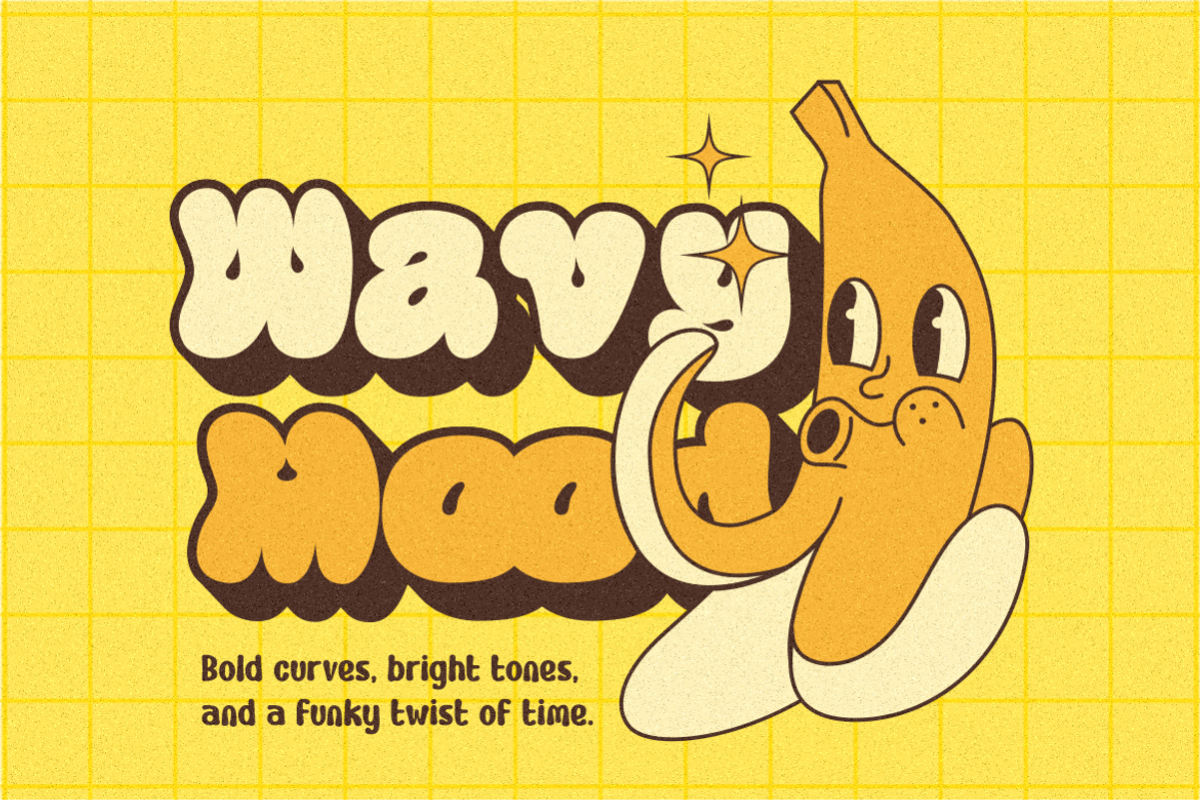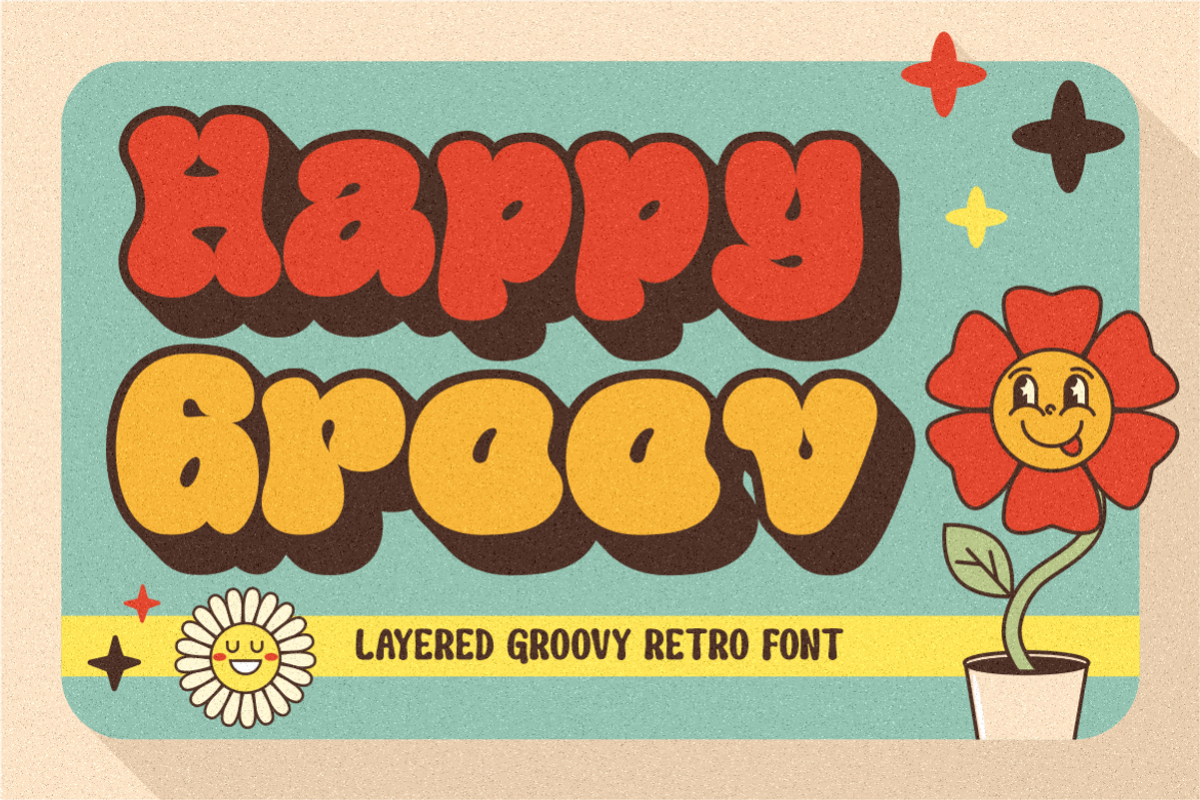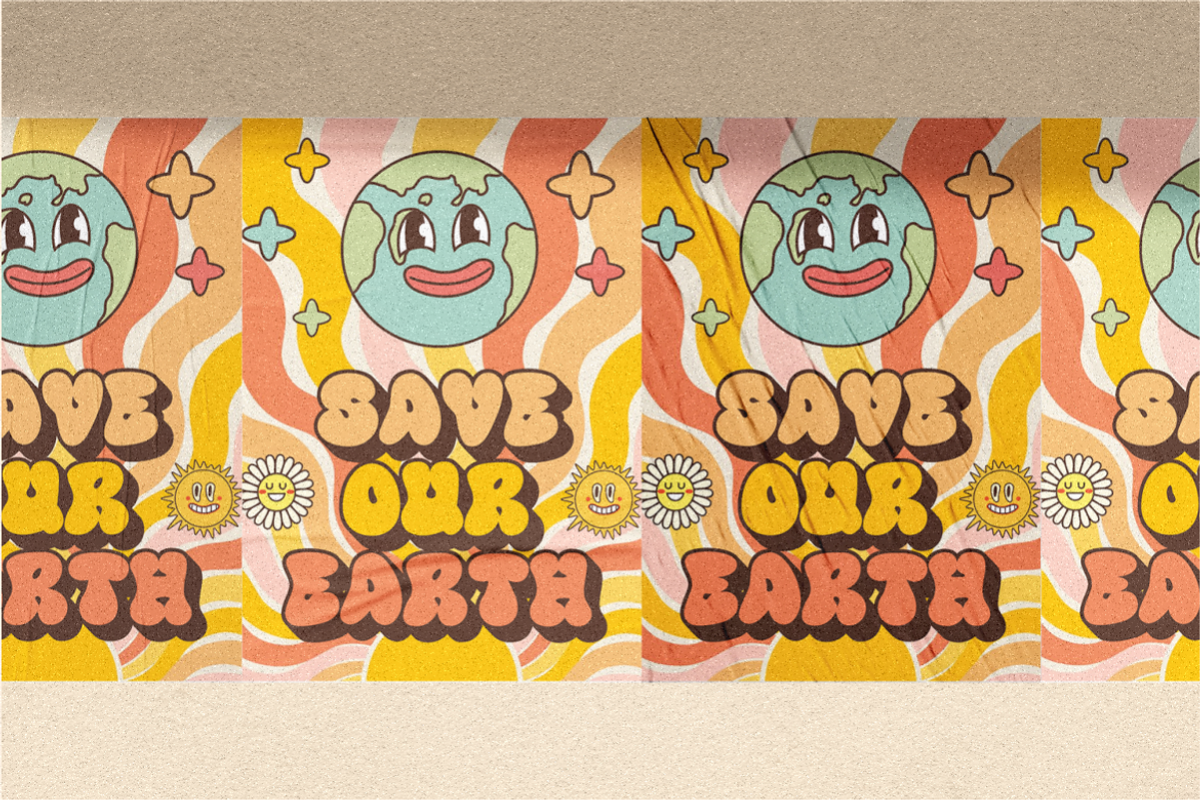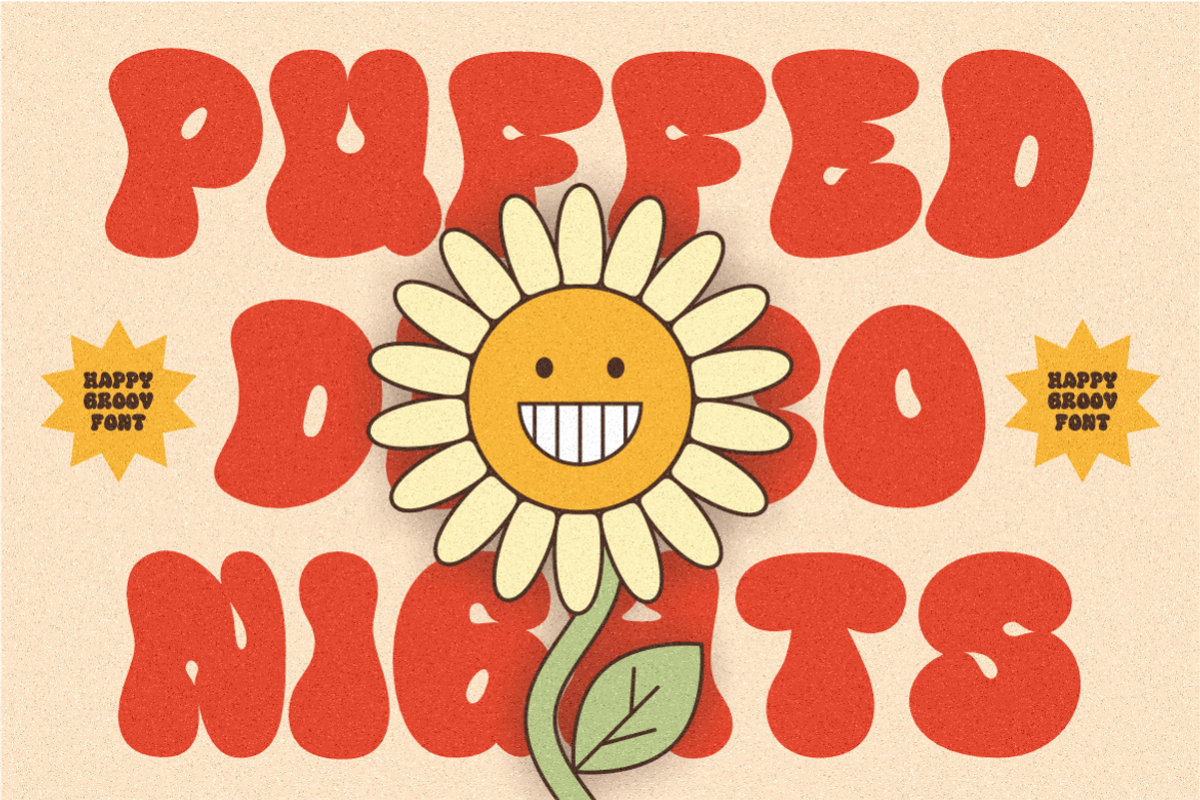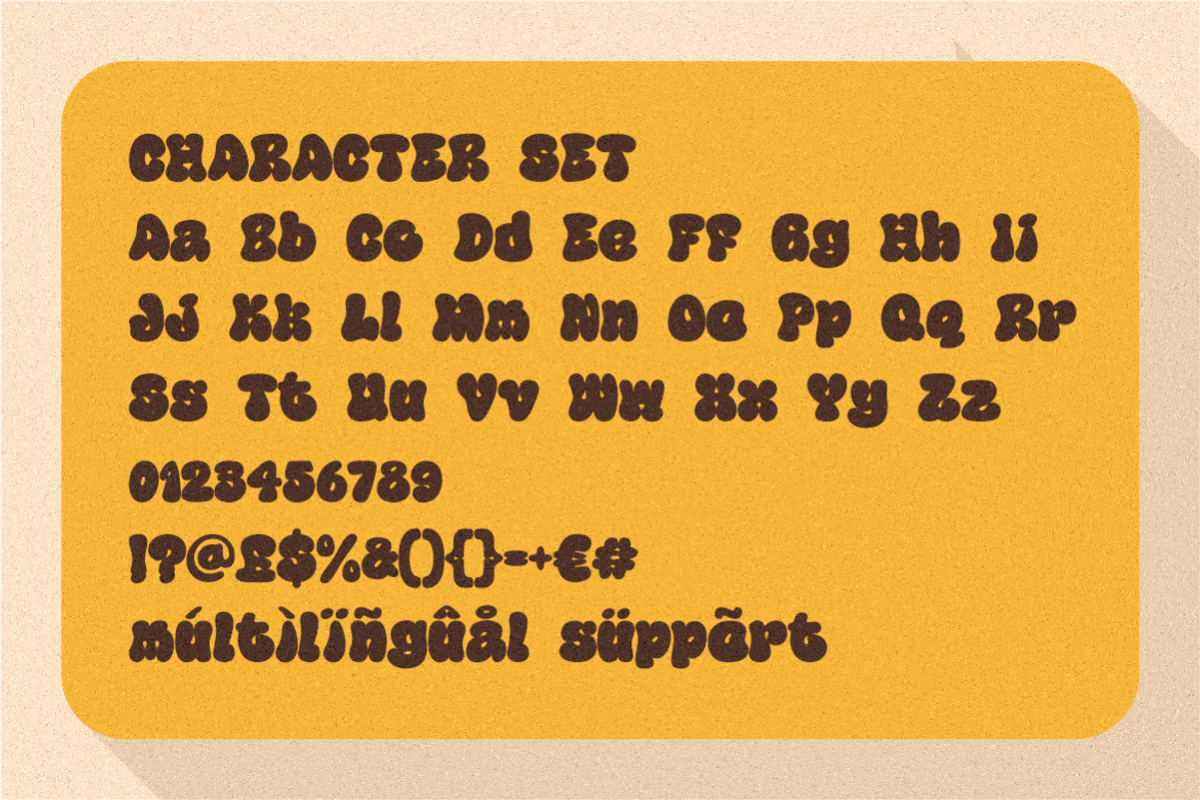
Happy Groov Layered Retro Font
Step back into a vibrant and funky time with Happy Groov – Layered Retro Font, a throwback typeface inspired by the bold, cheerful spirit of the 60s and 70s. Its chunky, bubble-like letterforms are built with smooth curves and exaggerated counters, making every character pop with energy. The layered structure adds dimension, while the heavy outline injects a lively, almost cartoonish rhythm. Designed to capture attention and exude joy, this font radiates warmth and playfulness, perfect for any retro-themed composition.
Happy Groov is ideal for creating standout headlines, groovy logos, funky posters, or retro packaging designs. Whether used in branding, stickers, apparel, or editorial layouts, this font thrives in projects that demand a splash of color and personality. From children’s designs to eco-conscious campaigns, its versatility pairs well with cheerful graphics and nostalgic visuals. With multilingual support and punctuation coverage, it ensures your creativity isn't limited by language. Happy Groov makes every design feel like a feel-good flashback!